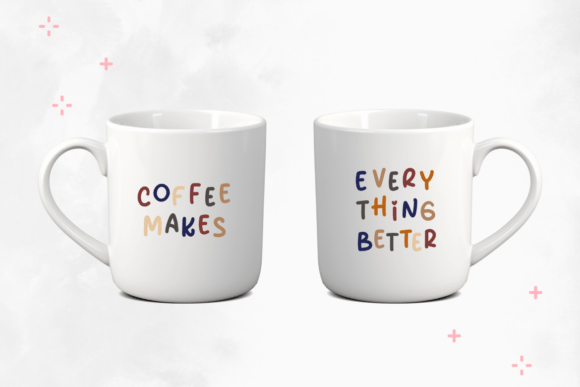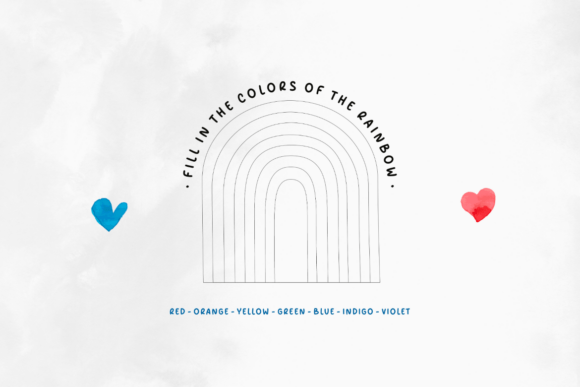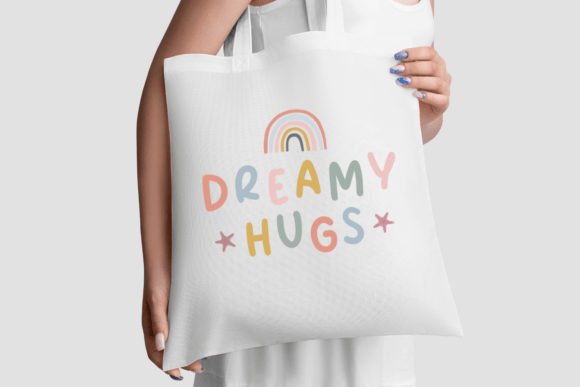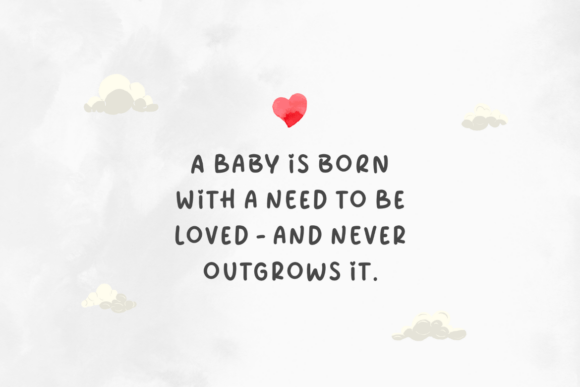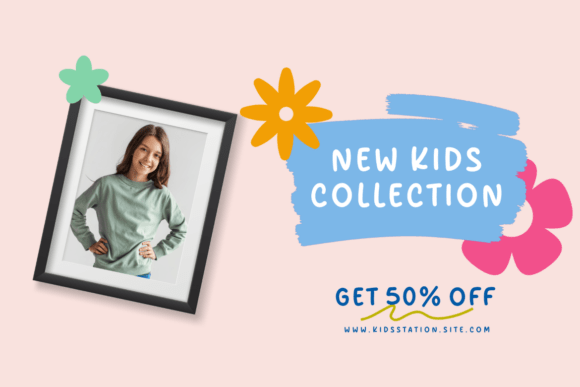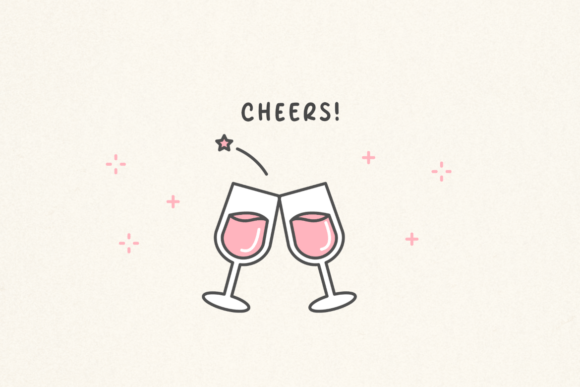
Discover the Delightful Charm of Dreamy Hugs Font
Are you looking for a font that can add a touch of warmth and personality to your designs? Look no further than Dreamy Hugs, a delightful handwritten font that is sure to captivate your audience with its charming essence. In this article, we’ll explore the unique features of Dreamy Hugs and how it can be used to create engaging and heartwarming designs.
The Unique Characteristics of Dreamy Hugs
Dreamy Hugs is a handwritten font that is characterized by its gentle, rounded strokes and whimsically crafted characters. The font emits a pleasant aura of joyfulness, making it perfect for designs that require a touch of playfulness and charm. The soft and delicate appearance of Dreamy Hugs is sure to evoke feelings of warmth and comfort, making it an excellent choice for a wide range of design projects.
Ideal Uses for Dreamy Hugs Font
Dreamy Hugs is a versatile font that can be used in a variety of design projects, including:
- Children’s branding content: The playful and whimsical nature of Dreamy Hugs makes it an excellent choice for designing children’s branding content, such as logos, packaging, and marketing materials.
- Heart-warming greeting cards: The font’s gentle and soothing appearance makes it perfect for creating heartwarming greeting cards for special occasions, such as birthdays, holidays, and anniversaries.
- Inspirational quotes: Dreamy Hugs can be used to create inspirational quotes that are both visually appealing and uplifting.
- Baby product line-ups: The font’s soft and delicate appearance makes it an excellent choice for designing baby product line-ups, such as baby clothes, toys, and accessories.
Benefits of Using Dreamy Hugs Font
Using Dreamy Hugs font in your designs offers a range of benefits, including:
- Unique and playful aesthetic: Dreamy Hugs adds a touch of playfulness and whimsy to your designs, making them stand out from the crowd.
- Emotional connection: The font’s gentle and soothing appearance can help create an emotional connection with your audience, making your designs more relatable and engaging.
- Versatility: Dreamy Hugs can be used in a wide range of design projects, from children’s branding content to inspirational quotes.
Tips for Using Dreamy Hugs Font
Here are some tips for using Dreamy Hugs font in your designs:
- Pair with complementary fonts: Pair Dreamy Hugs with complementary fonts to create visual interest and contrast.
- Use in combination with images: Use Dreamy Hugs in combination with images to create a visually appealing and engaging design.
- Experiment with colors: Experiment with different colors to find the perfect combination that complements your design.
Dreamy Hugs font is a delightful handwritten font that is sure to captivate your audience with its charming essence. With its gentle, rounded strokes and whimsically crafted characters, Dreamy Hugs is perfect for adding a touch of warmth and personality to your designs. Whether you’re designing children’s branding content, heartwarming greeting cards, or inspirational quotes, Dreamy Hugs is an excellent choice. So why not give Dreamy Hugs a try and see how it can bring a touch of joyfulness and whimsy to your designs?
Get Ready to Hug Your Audience with Dreamy Hugs!